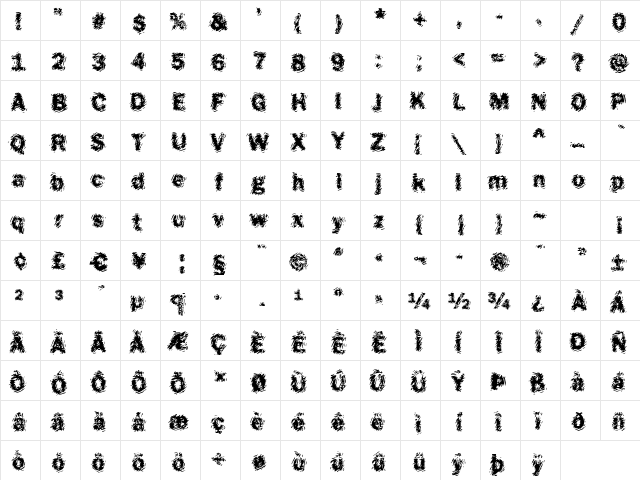
Funky18 Bold
Design Context for Funky18 Typeface
Funky18 trades formality for fun, with bouncy, characterful letterforms that bring warmth and energy to any project.
Font Pairing: Pairs well with a rounded or humanist sans for body copy, maintaining the friendly tone without relying on Funky18 to carry extended reading.
Pro Tip: Avoid using Funky18 for long passages of text — it works best for headlines, labels, and short calls to action.